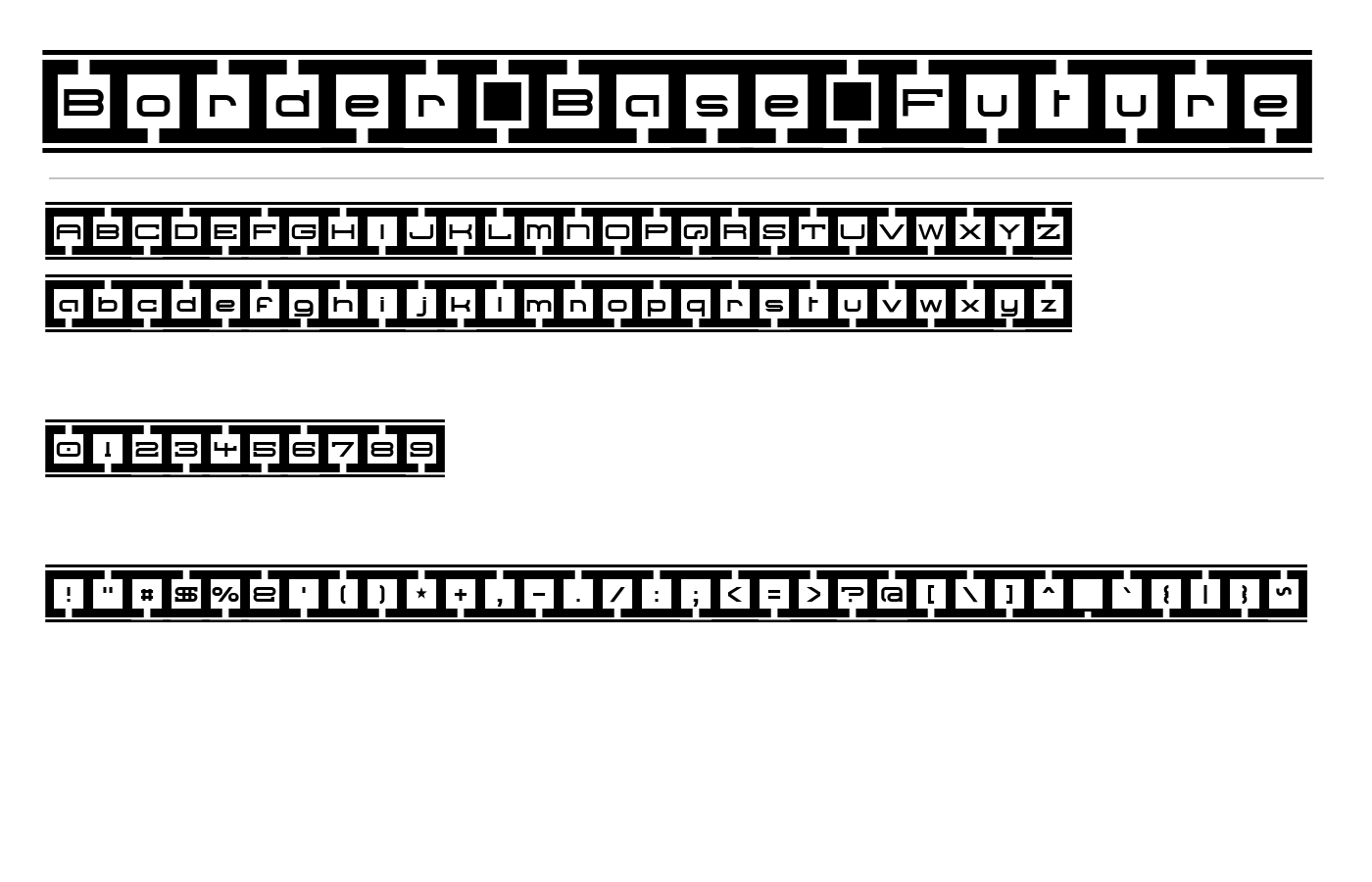
Border Base Future is a unique, geometric sans serif font characterized by its bold, blocky letterforms enclosed within square borders, giving it a highly structured, futuristic appearance. The font features consistent stroke weight with low contrast and a modular design that feels both modern and technical. Ideal for tech, sci-fi, or digital-themed projects, it works best in logos, headlines, and display uses where a distinctive, attention-grabbing style is desired.
Border Base Future Font
About Border Base Future Font